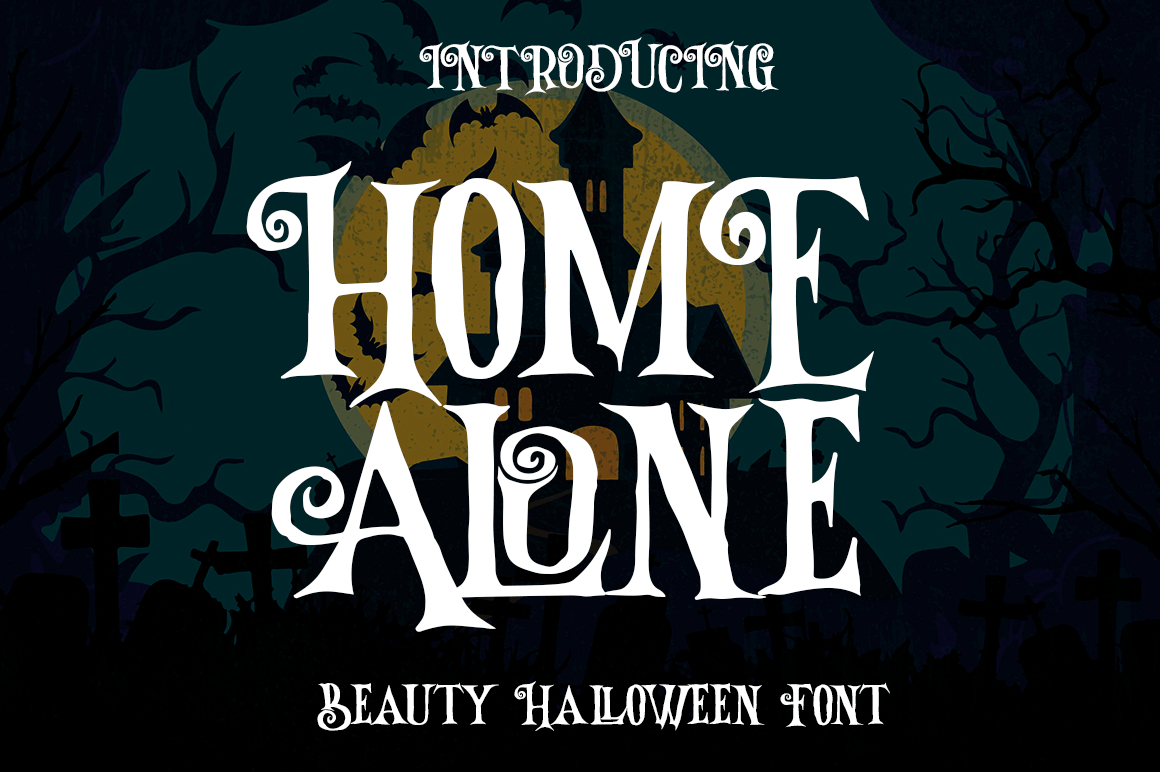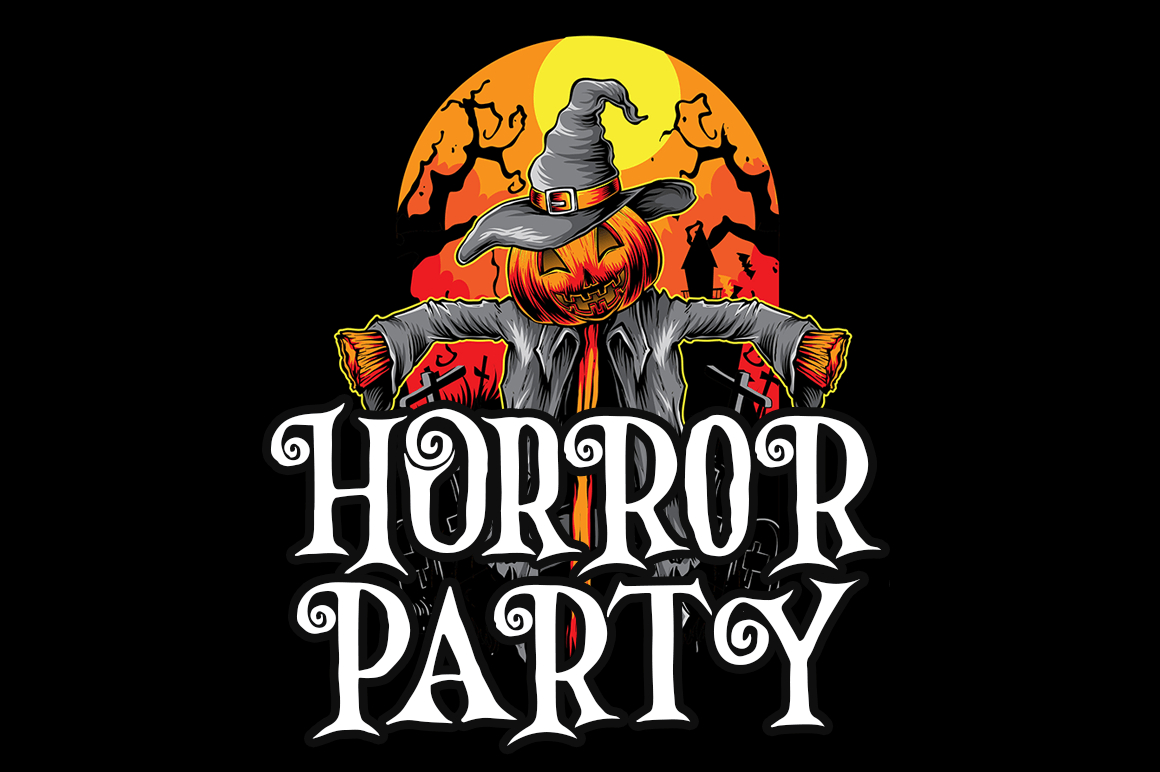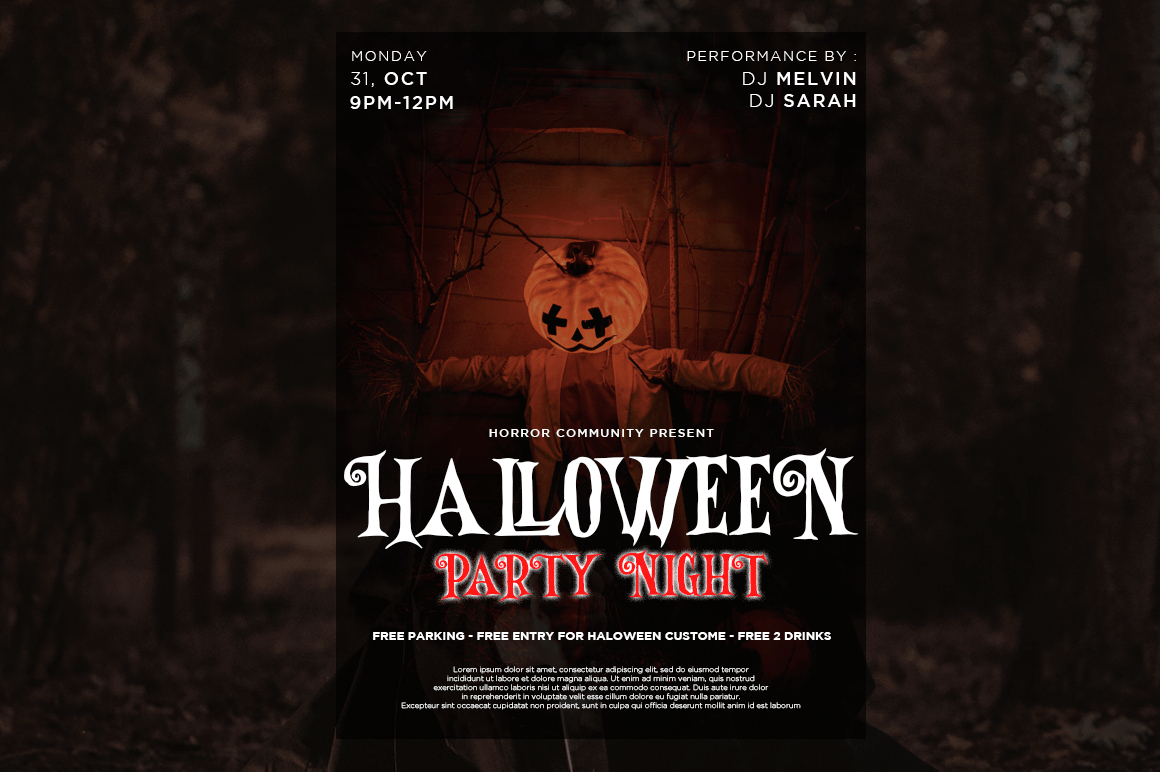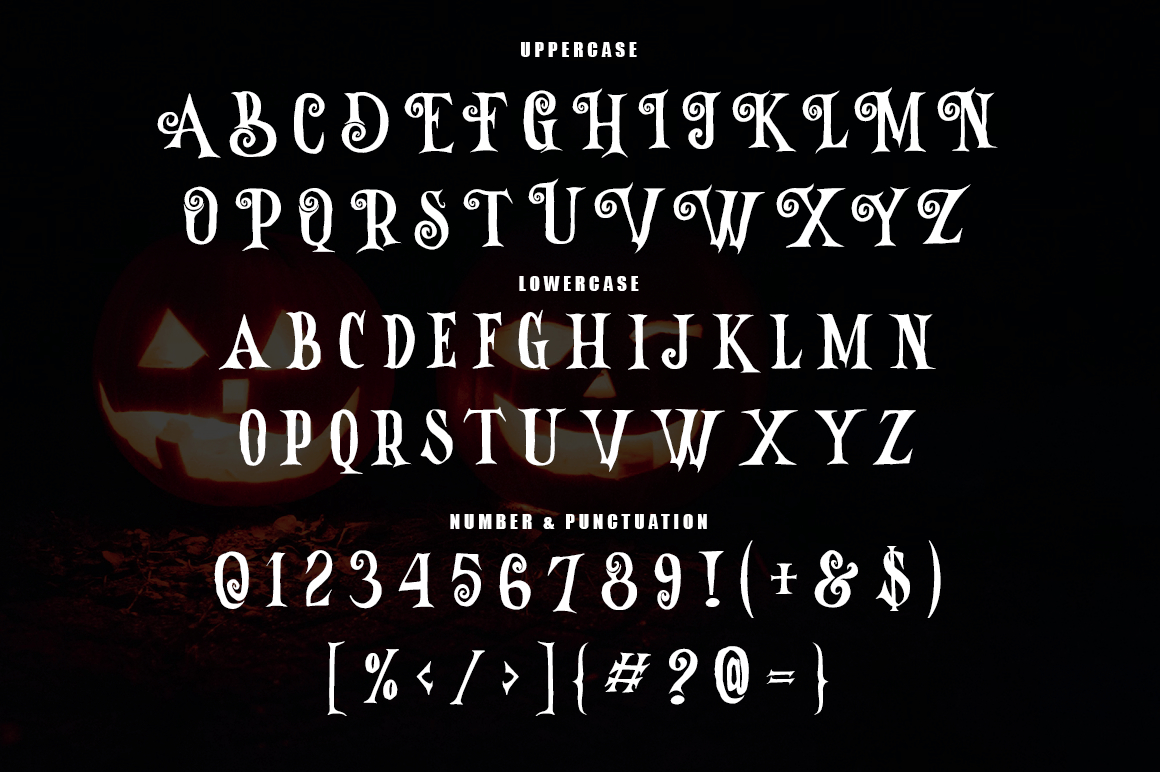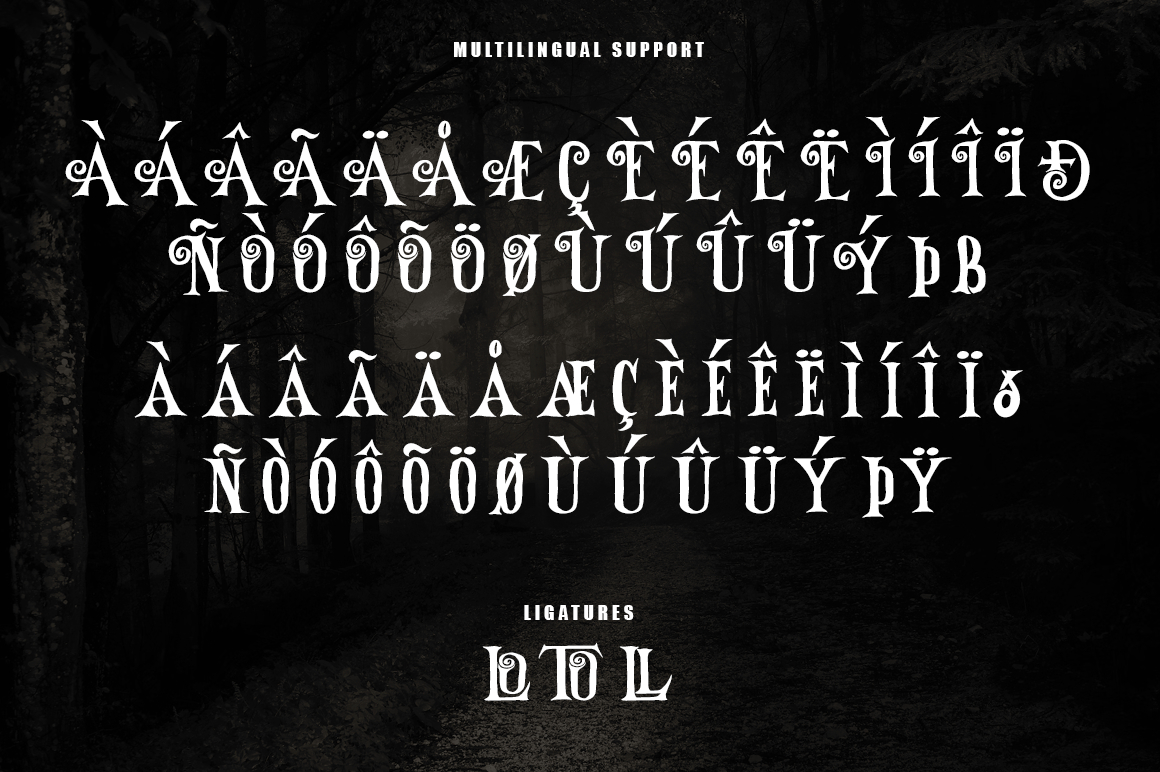
About Home Alone Font
Scary and mysterious, Home Alone is the perfect display font for creating spooky Halloween designs. Add it now to your font library and start creating thrilling projects that will amaze your audience.